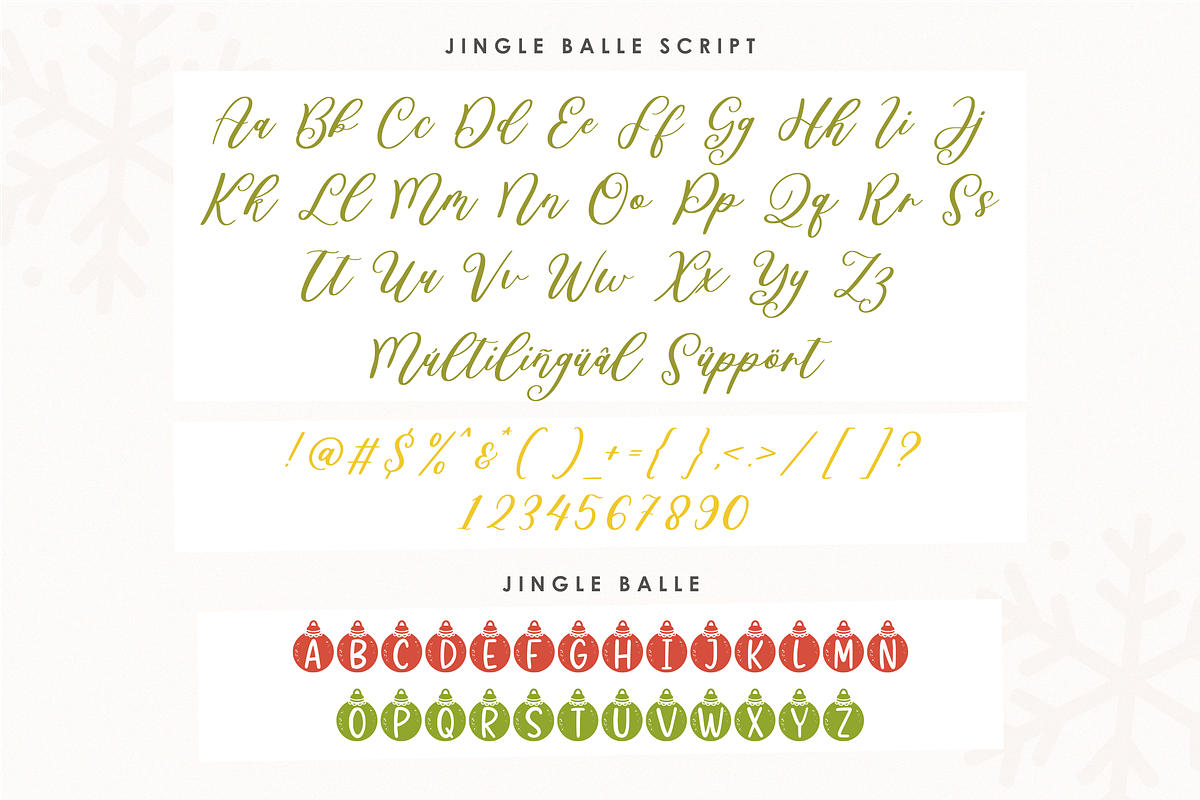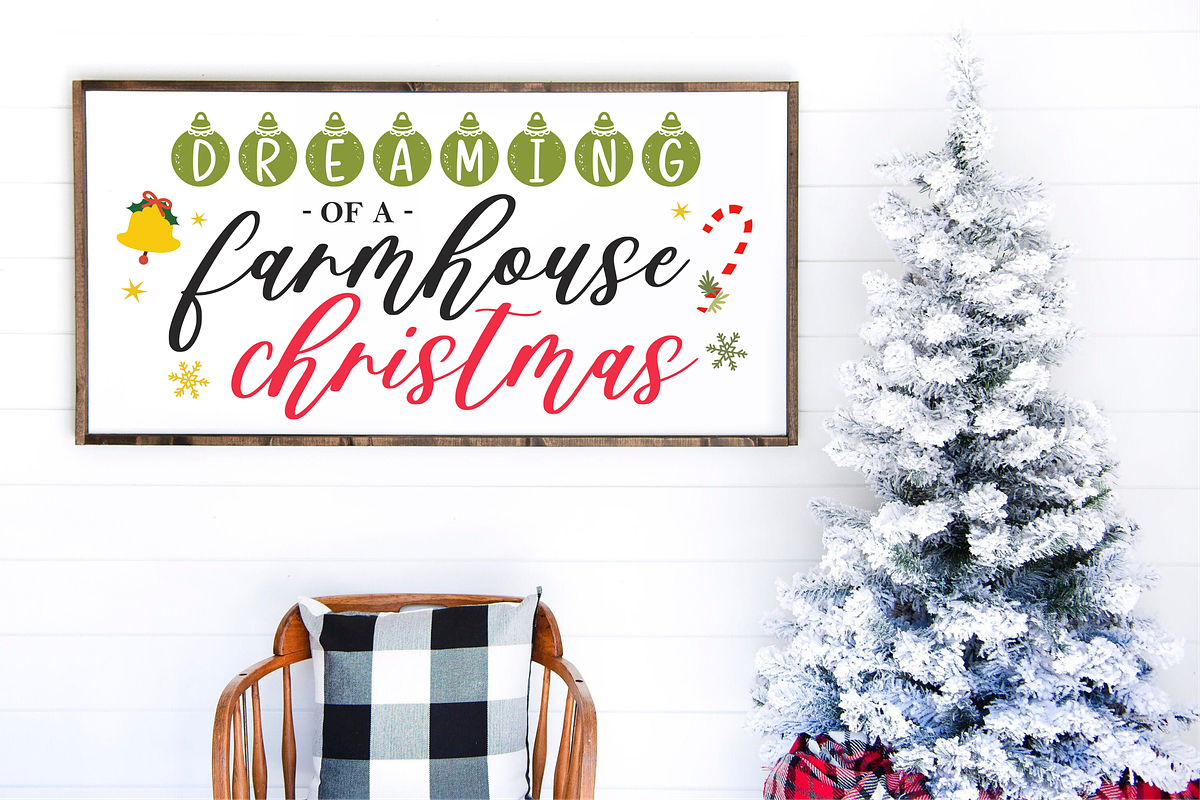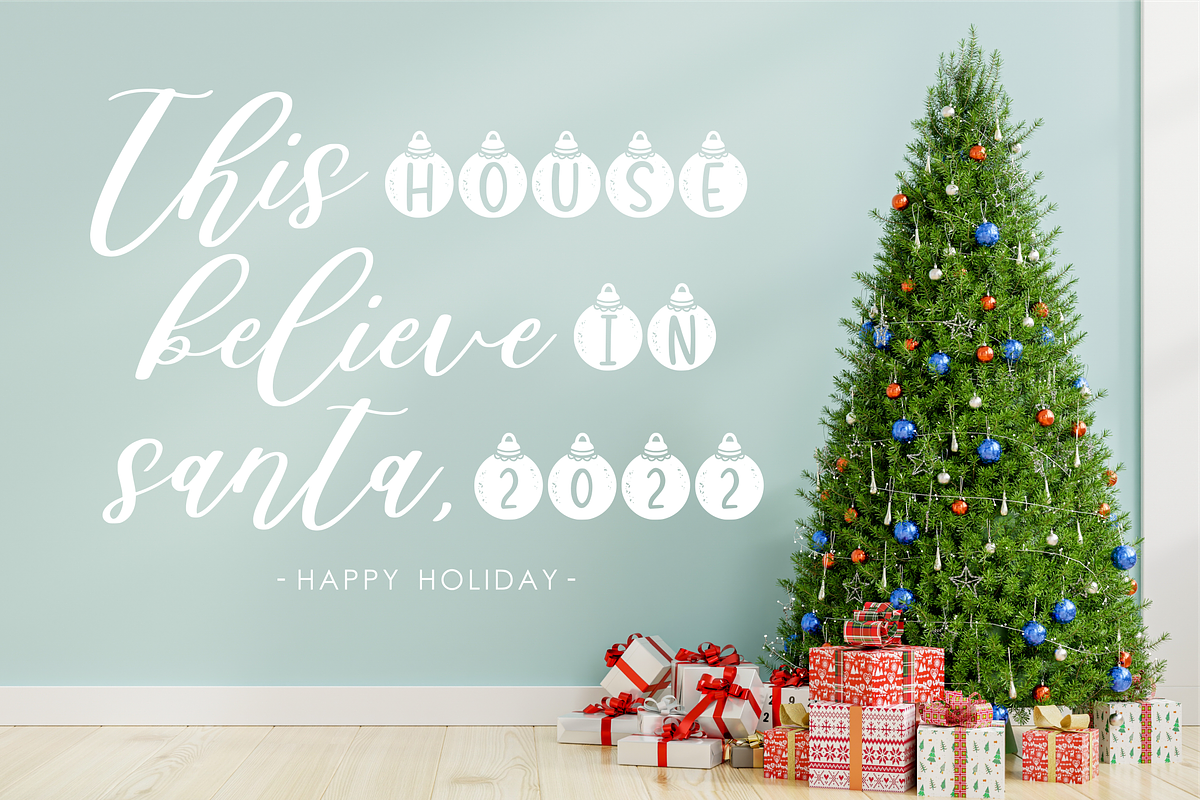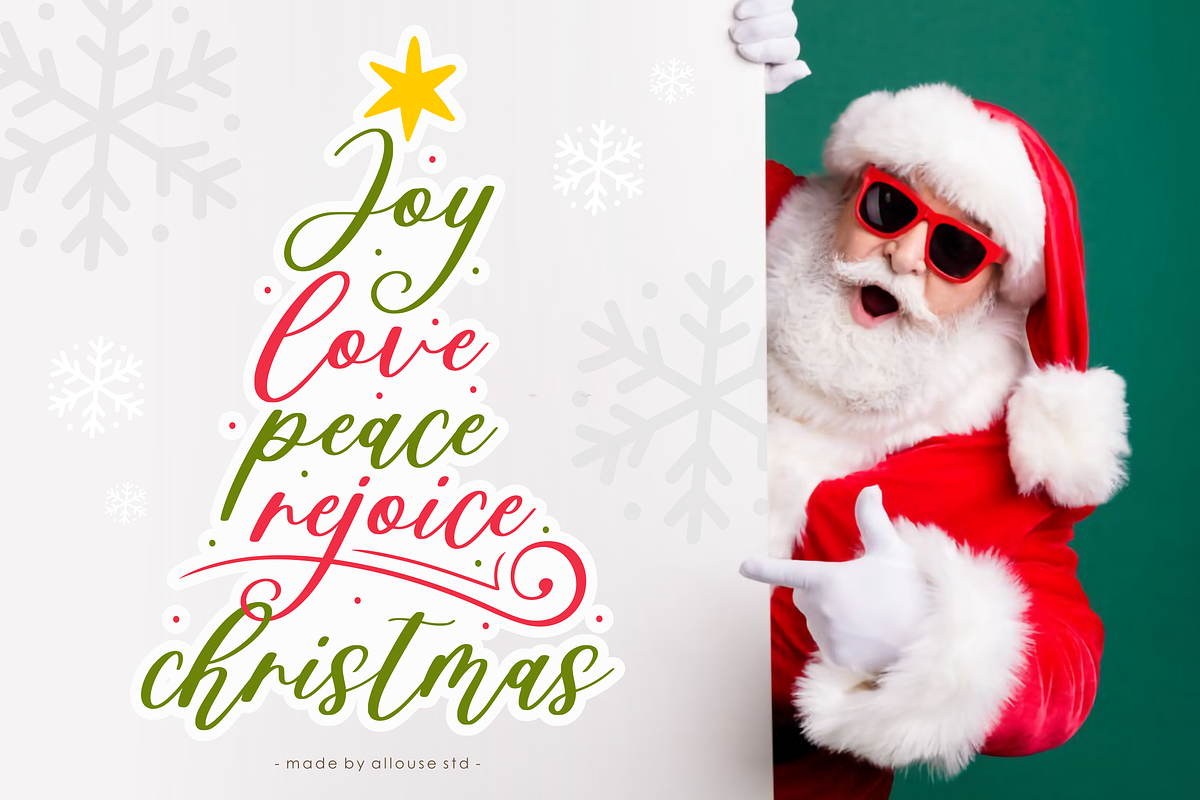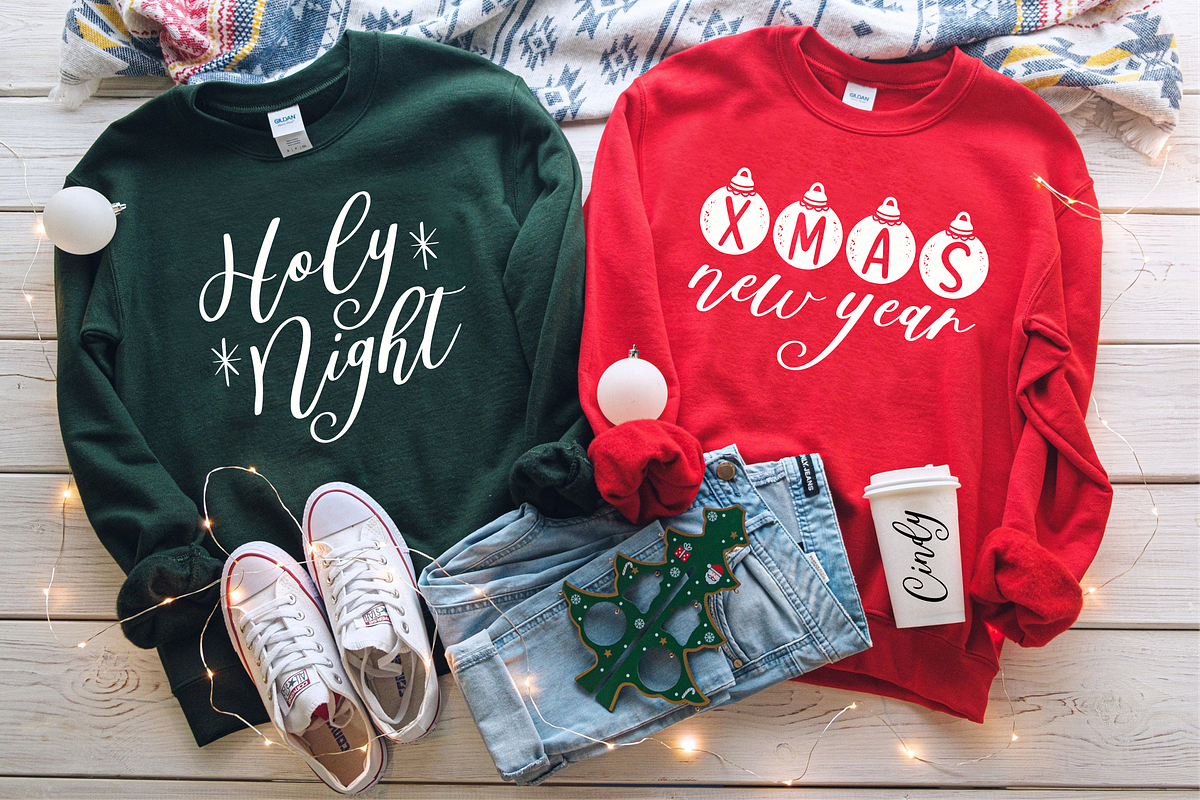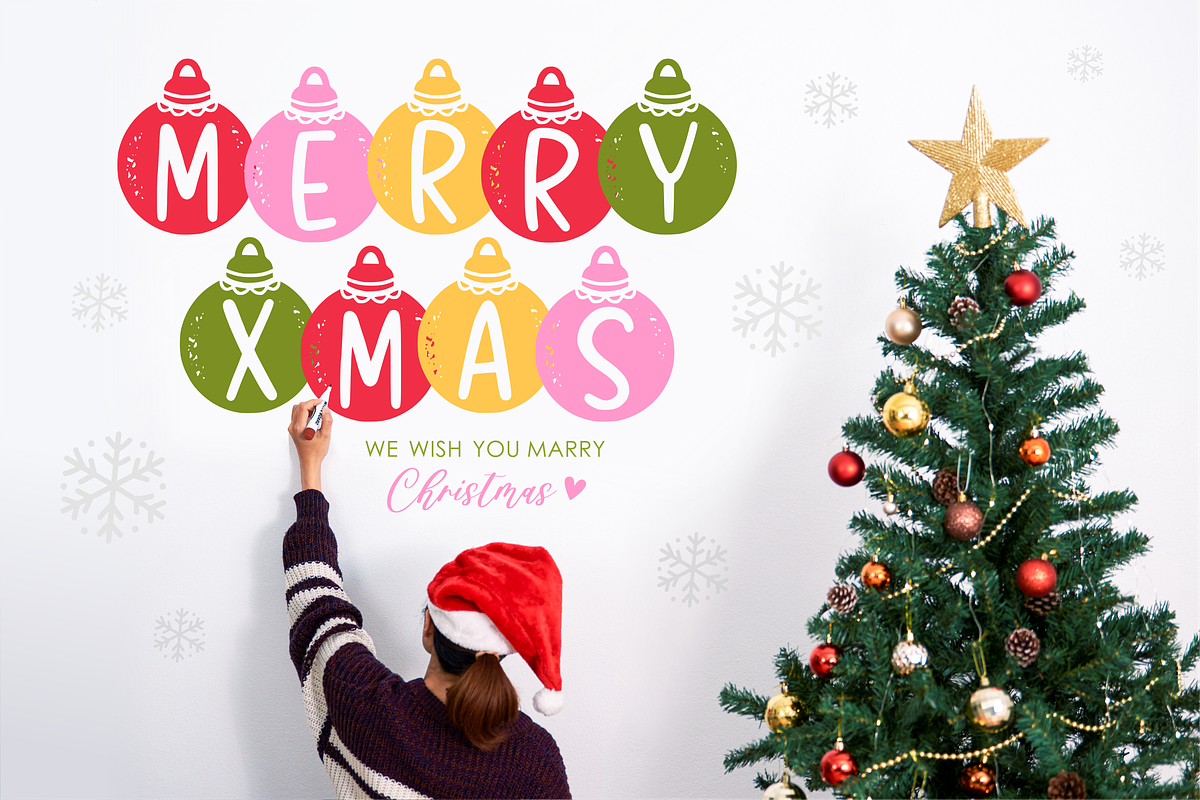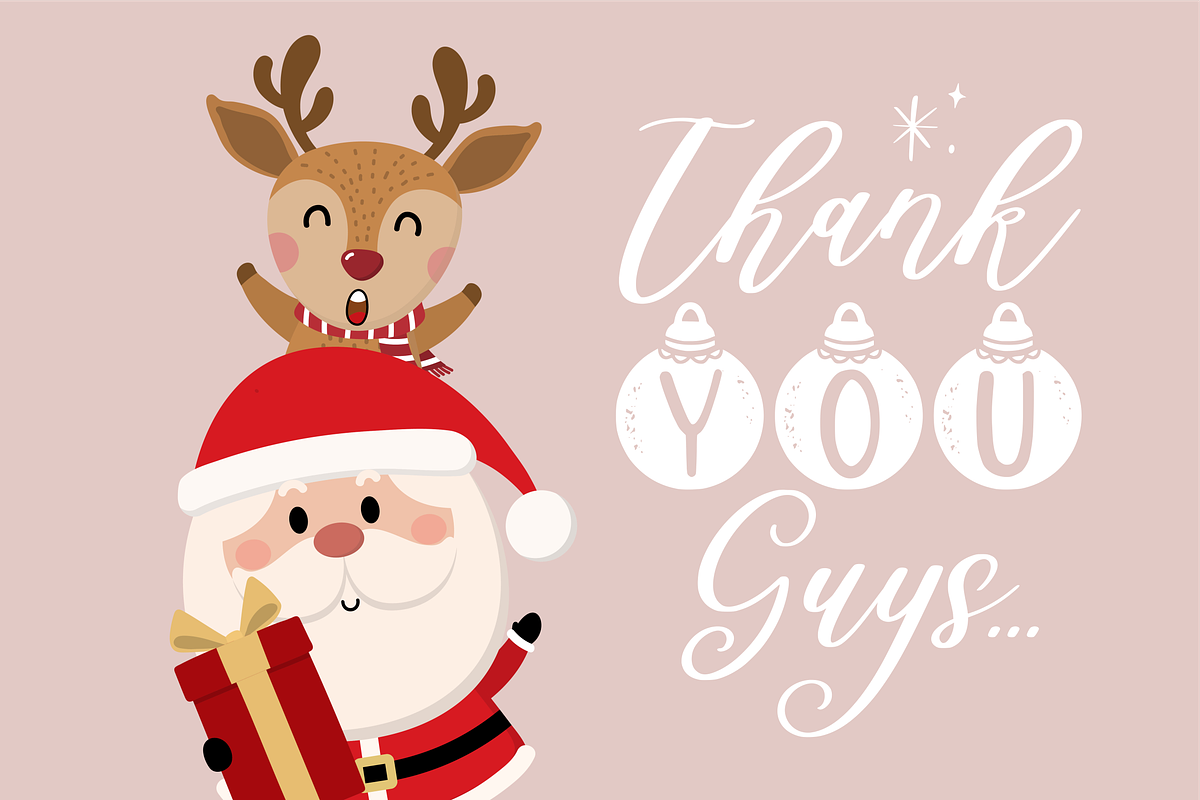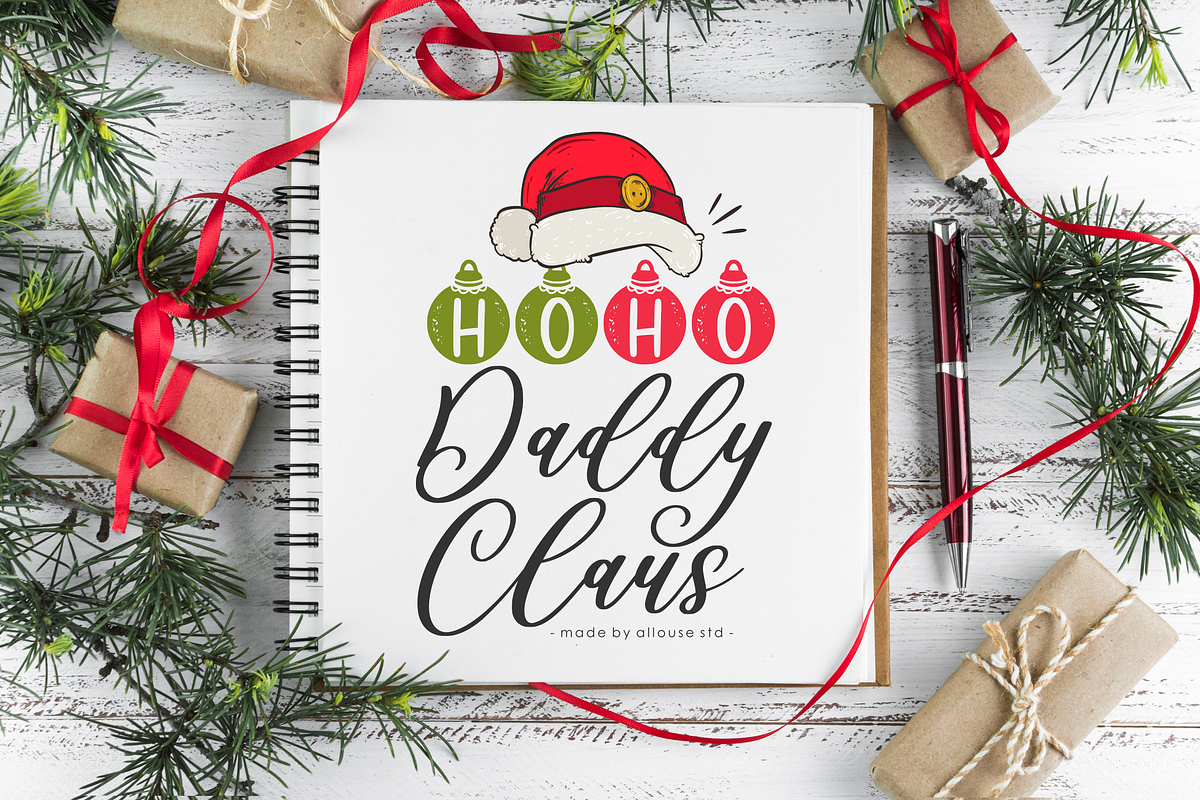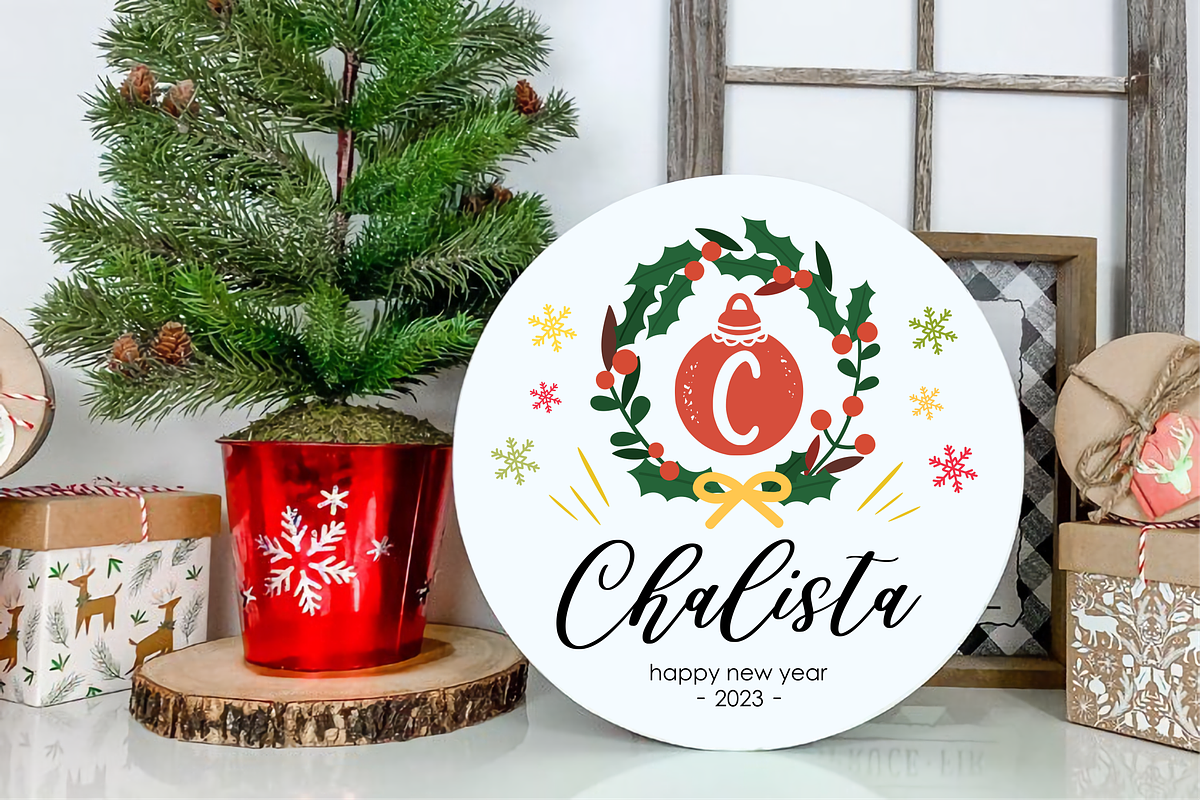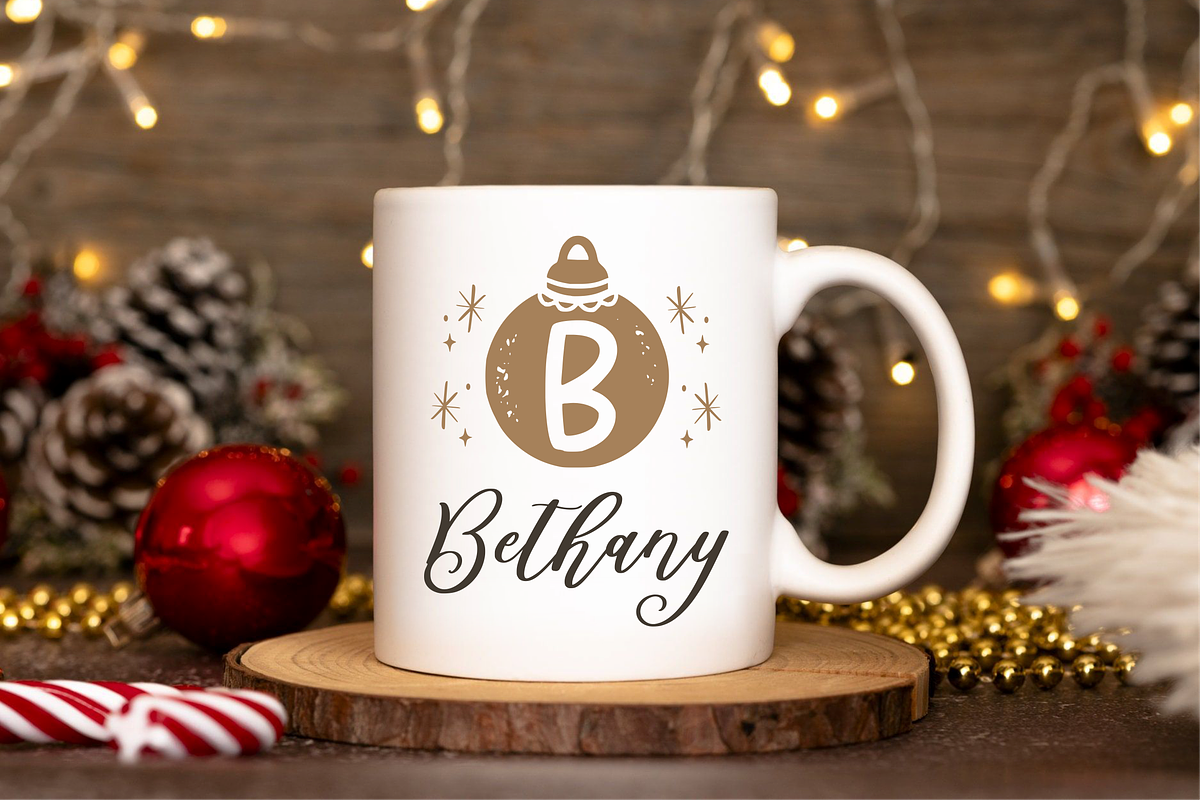
Jingle Balle A Christmas Font
Proudly Presenting, Jingle Balle A Christmas Font With Two Styles.
Jingle Balle is perfect for any titles, logo, product packaging, branding project, megazine, social media, wedding, or just used to express words above the background.
Jingle Balle also come with Multi-Lingual Support.